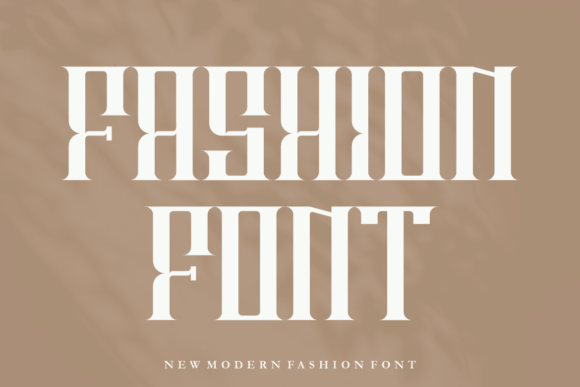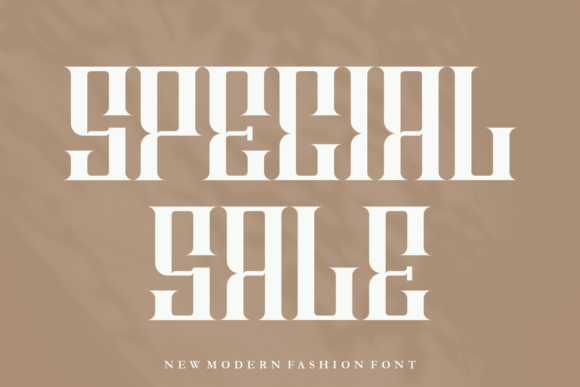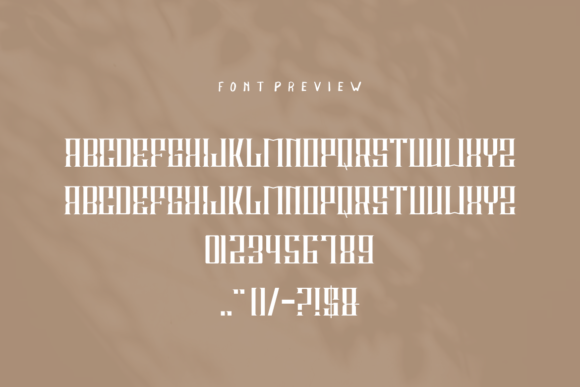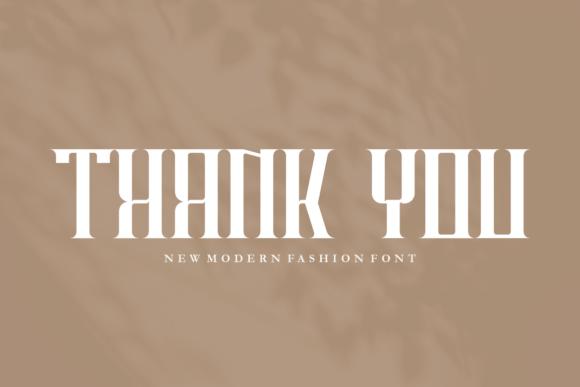
Introduction to Anesiya Font
Anesiya is an elegant and bold serif font.
Fall in love with its incredibly versatile style and use it to create gorgeous wedding invitations, beautiful stationary art, eye-catching social media posts, and much more .
Anesiya Font offers exceptional quality and versatility, making it a valuable addition to your design toolkit. Whether you’re creating for personal projects or commercial use, Anesiya Font delivers professional results.